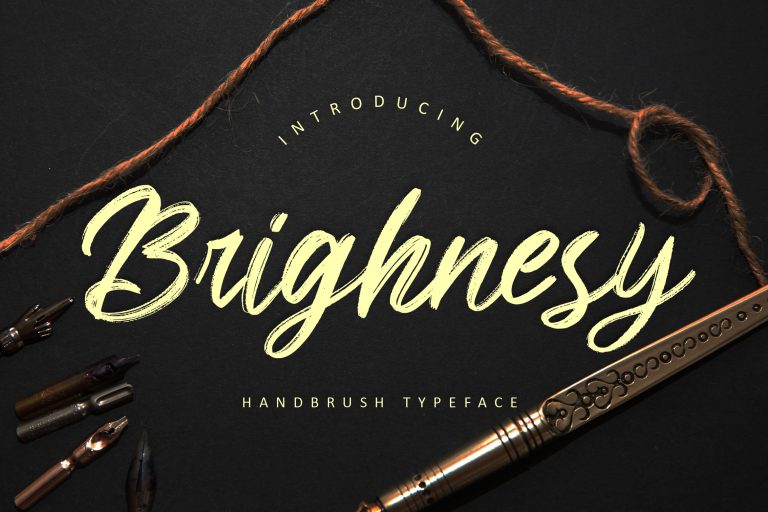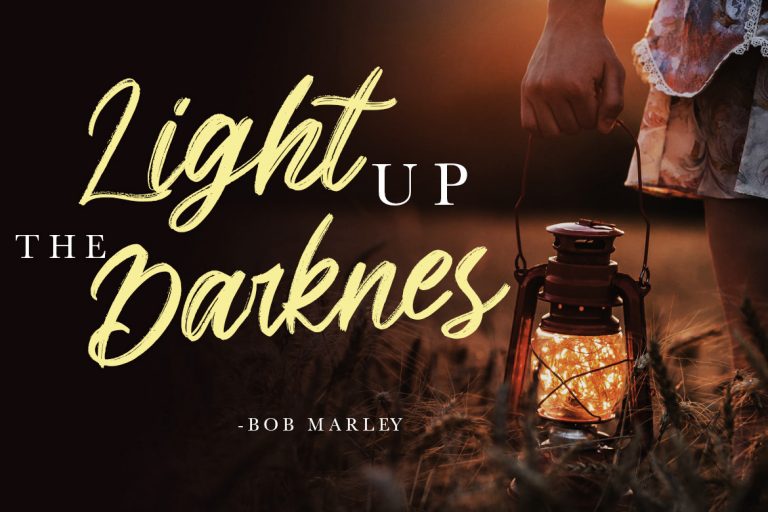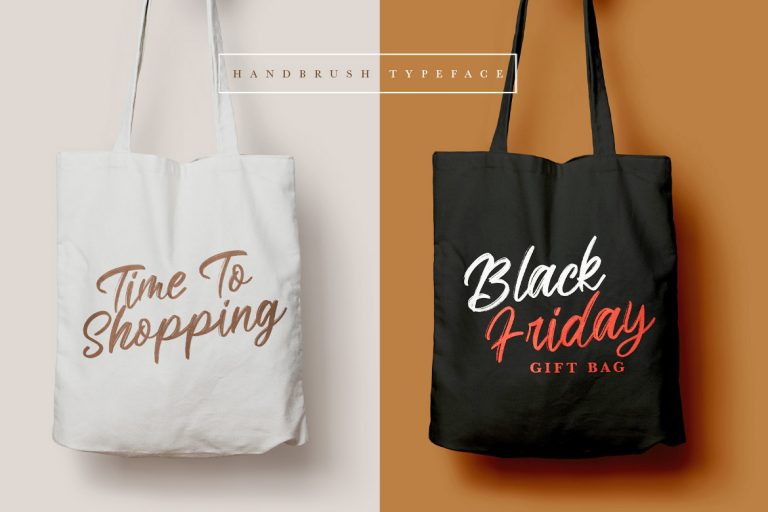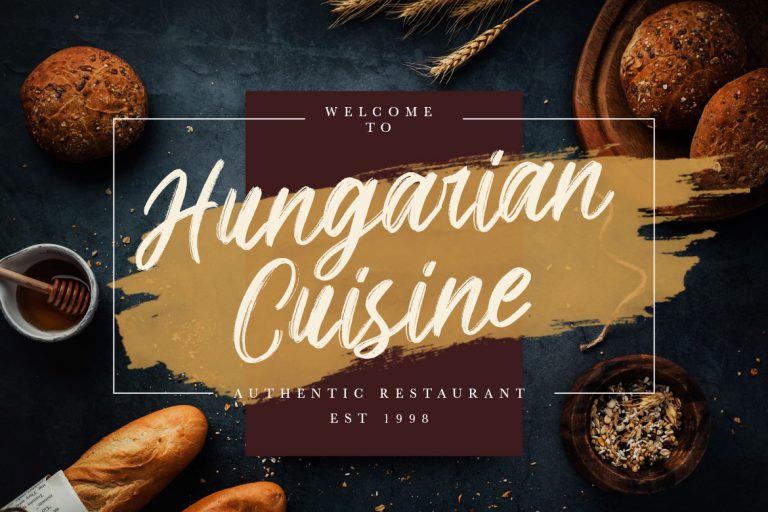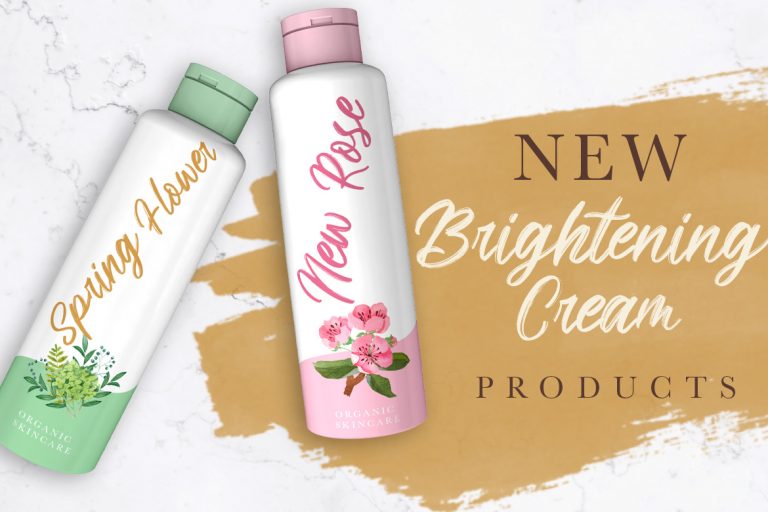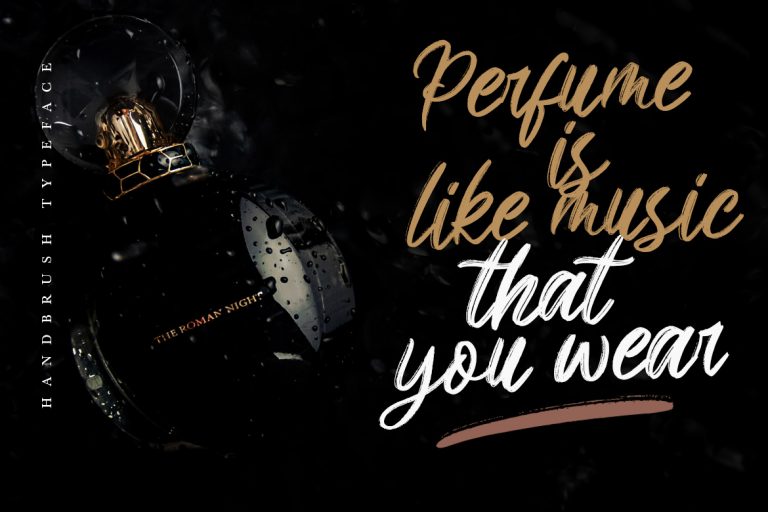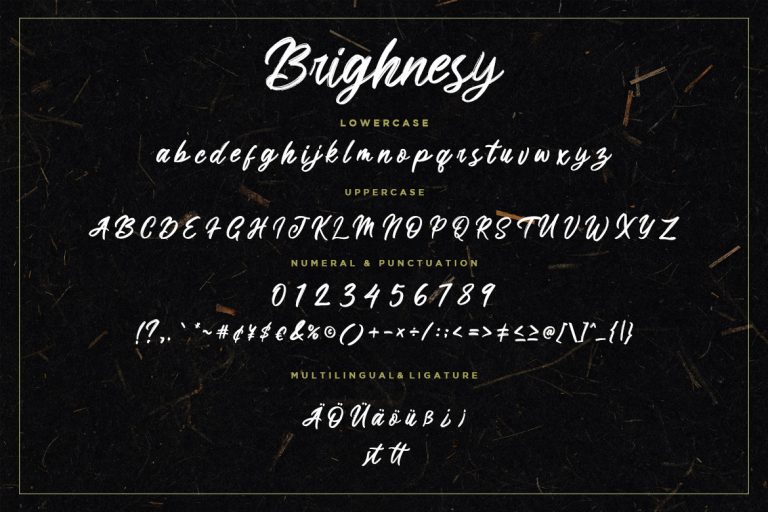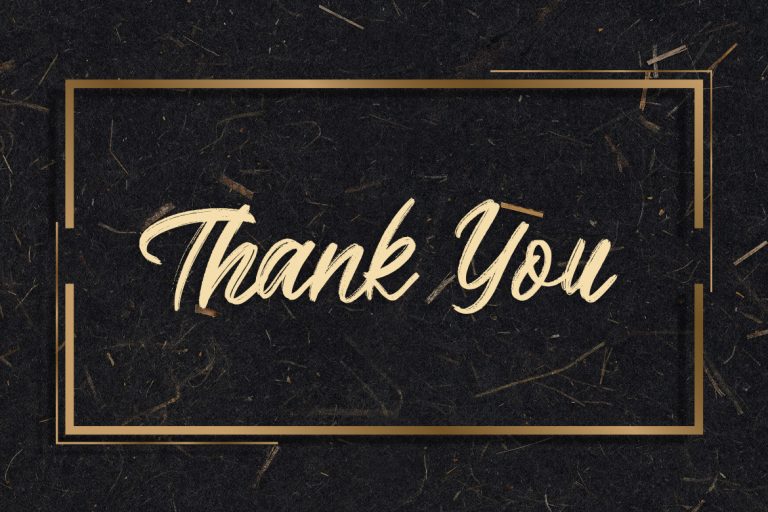
Brighnesy Hand Brush
Brighnesy is a brush script that is written casually and strong, made by carefully crafted with natural textured.
Brighnesy is perfect for branding projects, logo, wedding designs, social media posts, advertisements, product packaging, product designs, label, photography, watermark, invitation, stationery and any projects that need handwriting taste.
- Fonts include multilingual support for; ä ö ü Ä Ö Ü ß ¿ ¡